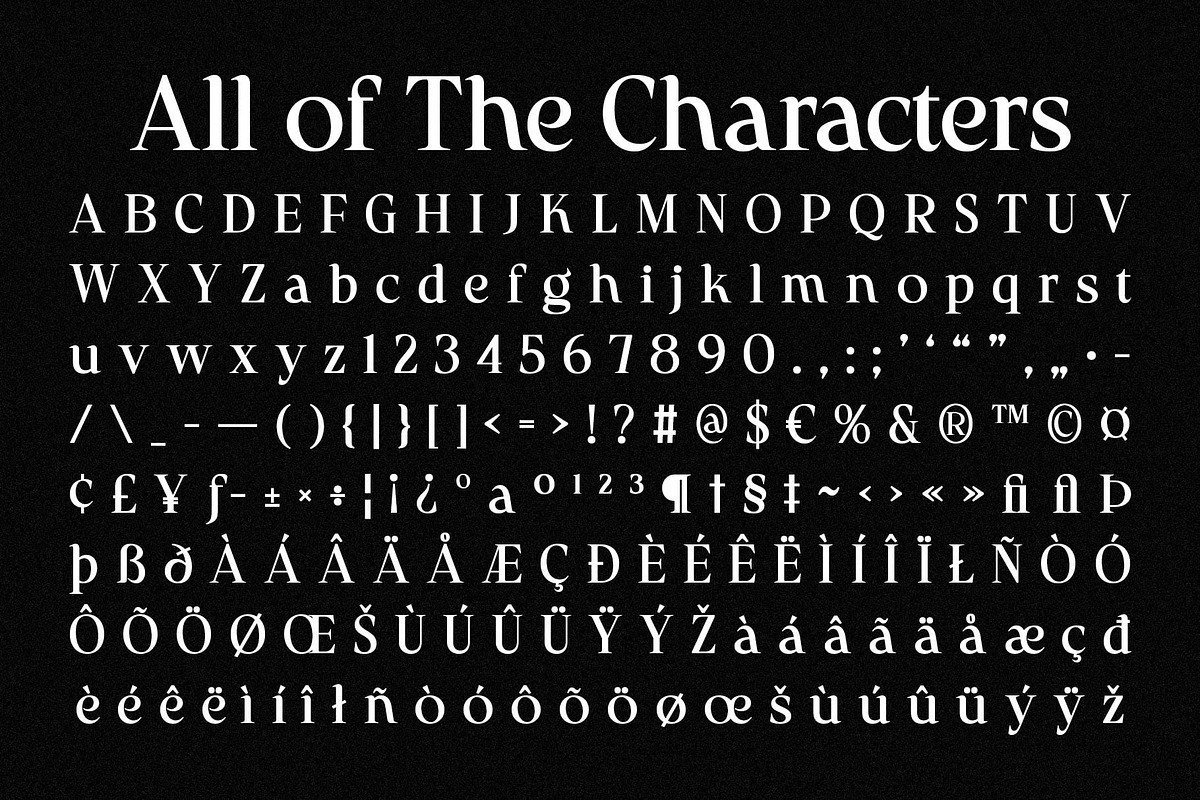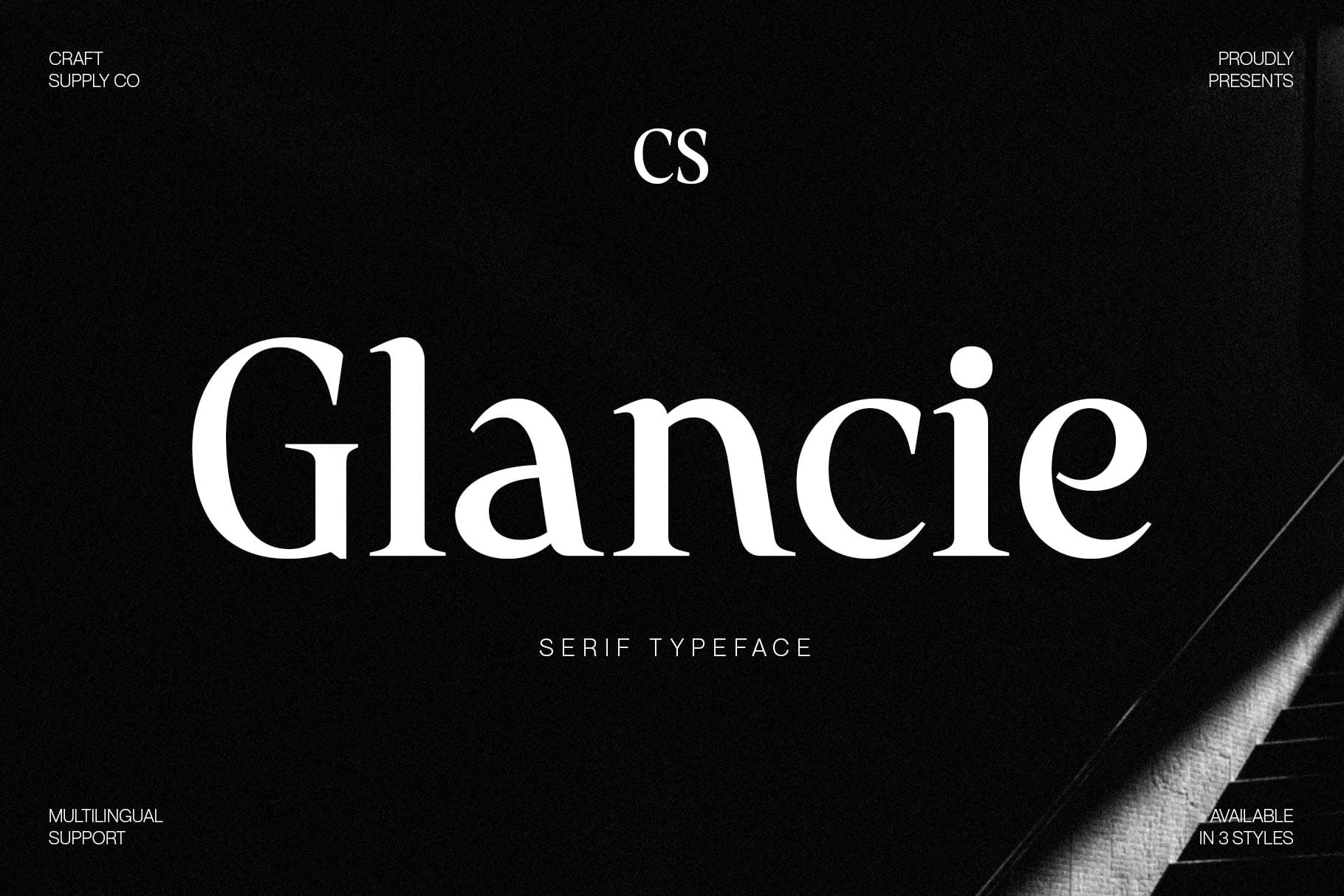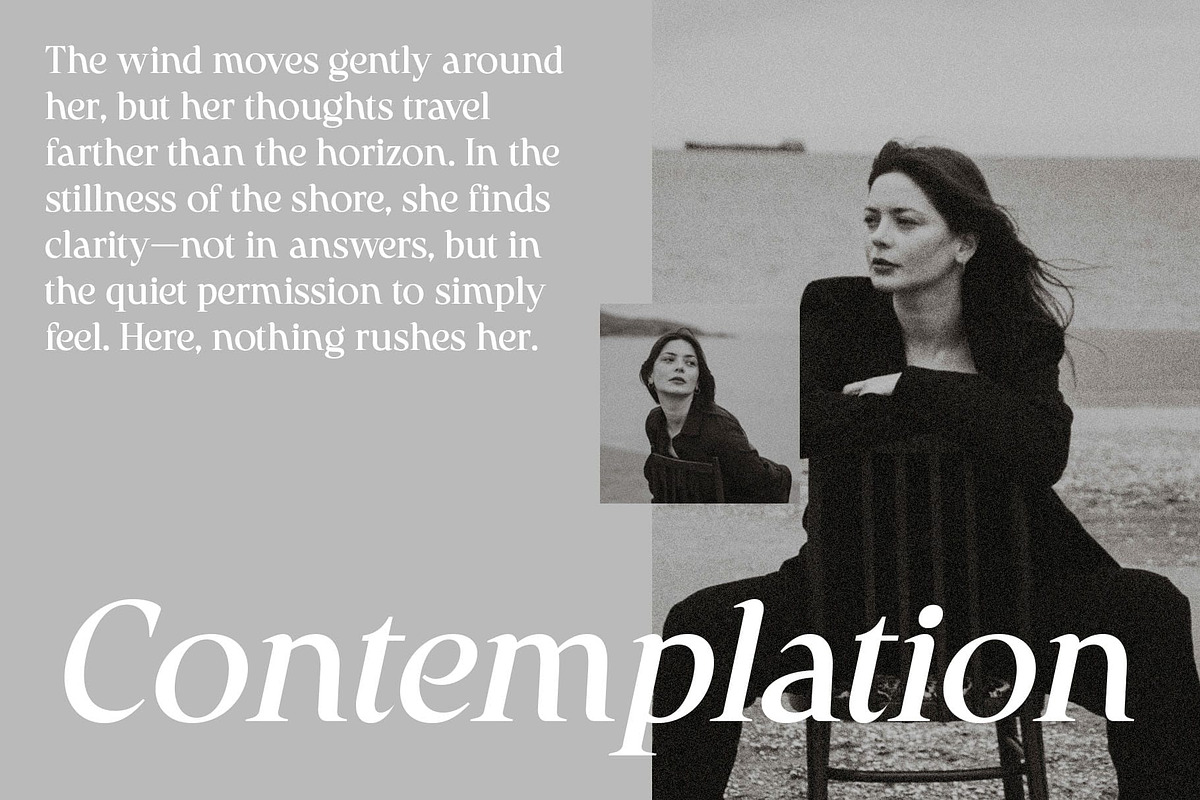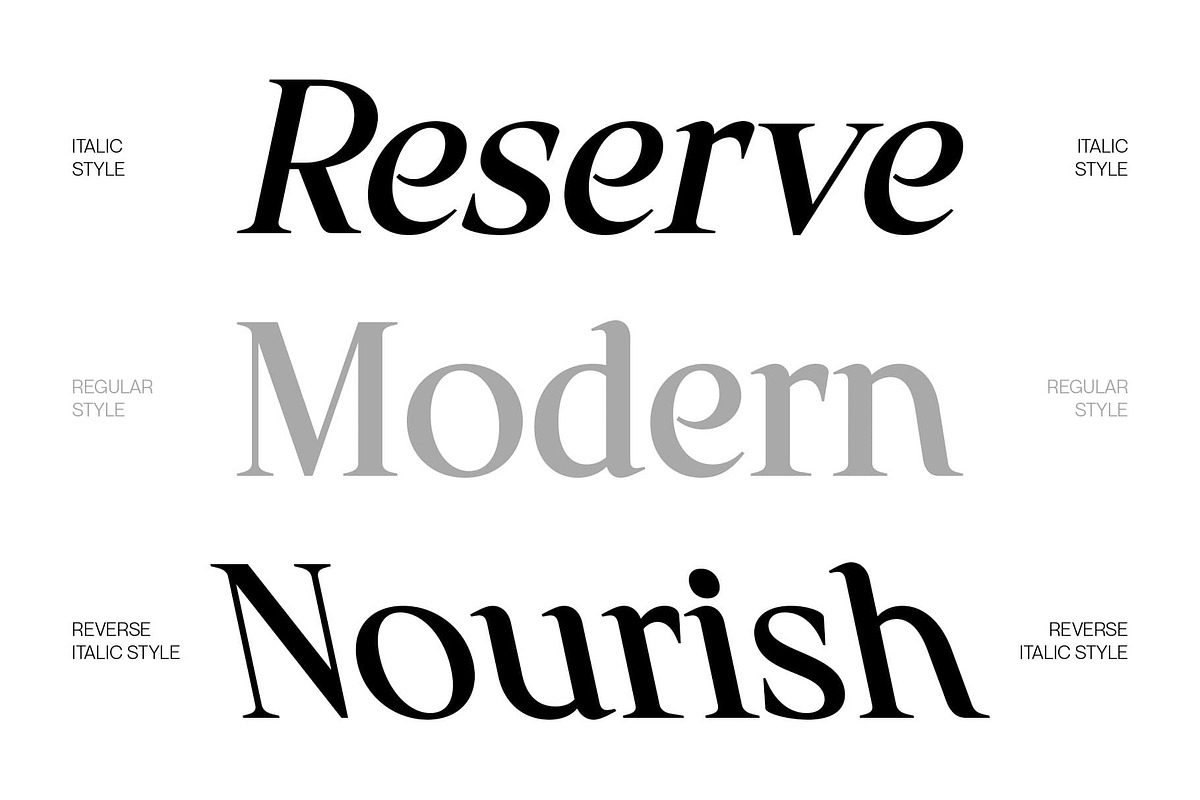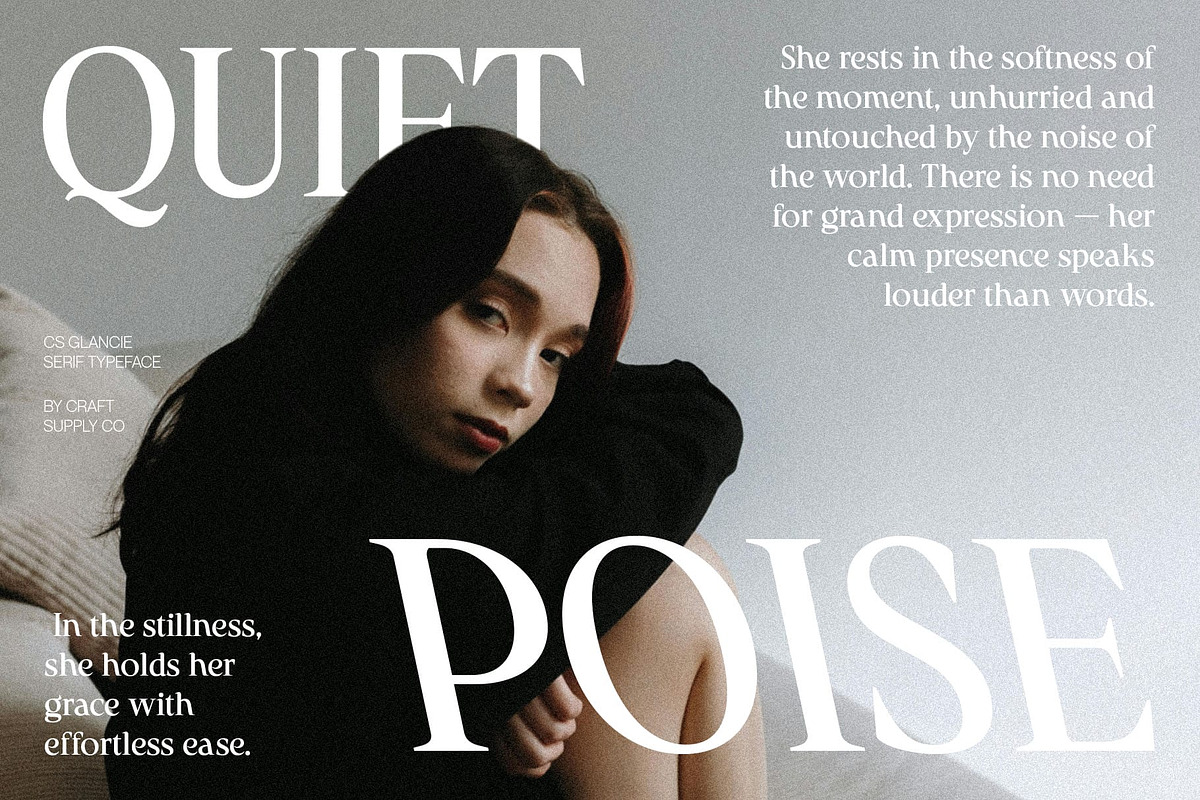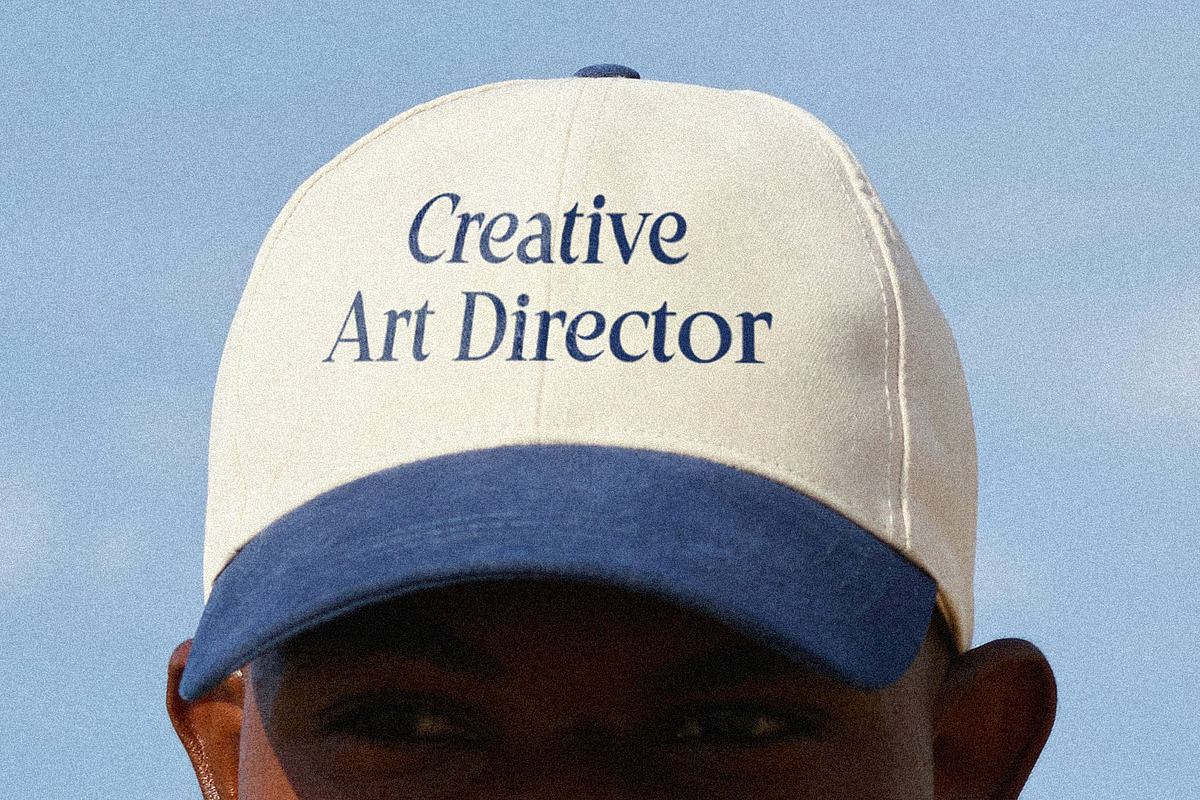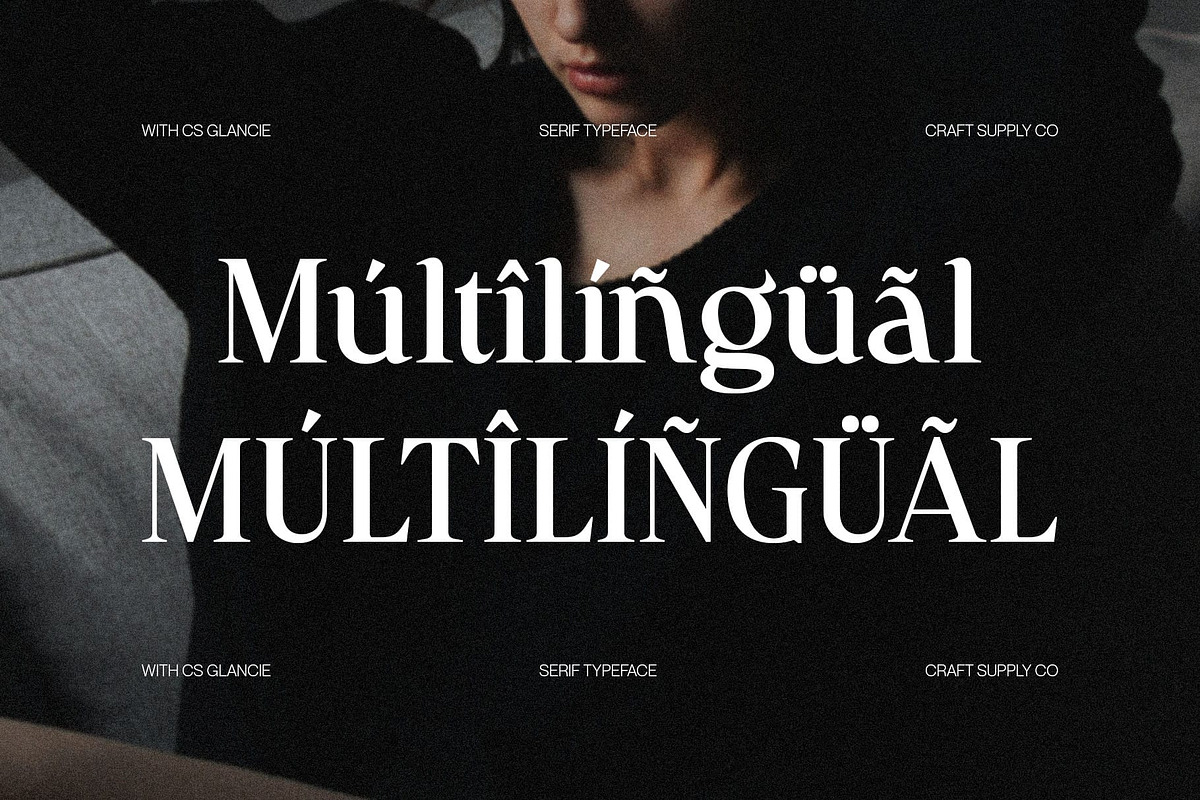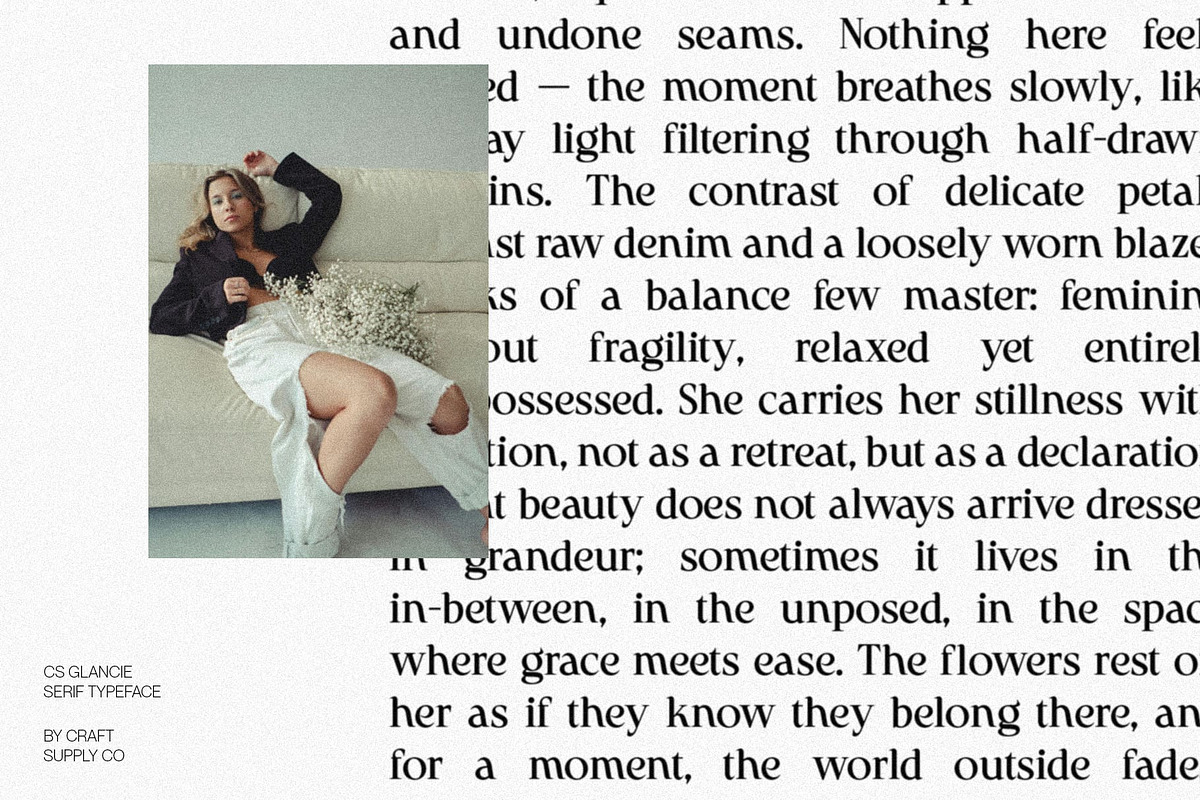
CS Glancie – Modern Serif Font
CS Glancie – Modern Sophistication with Bold Elegance
Refined Modern Serif Design This is a modern serif font that perfectly balances elegance and professionalism. Defined by its bold serifs and refined proportions, it conveys confidence and style in every letter. Each curve and angle is carefully crafted to create a typeface that feels both timeless and contemporary, ideal for brands seeking a sophisticated visual voice.
Elegant Details with a Confident Tone The strength of its serifs adds structure and character, while the smooth flow of its forms introduces a sense of refinement and luxury. This harmony of precision and artistry gives this font a distinct personality one that radiates confidence without sacrificing subtlety.
Perfect for Luxury and High-End Branding Designed for luxury brands, editorial design, and professional identities, this font elevates typography to a statement of class. Whether used in logos, packaging, fashion campaigns, or magazine headlines, it ensures your designs exude sophistication and modern beauty.
A Typeface with Soul and Presence More than just a serif, this font embodies the spirit of modern craftsmanship. Its bold serifs and graceful rhythm bring a human touch to professional design, making it the perfect choice for those who value elegance, clarity, and confidence in visual communication.